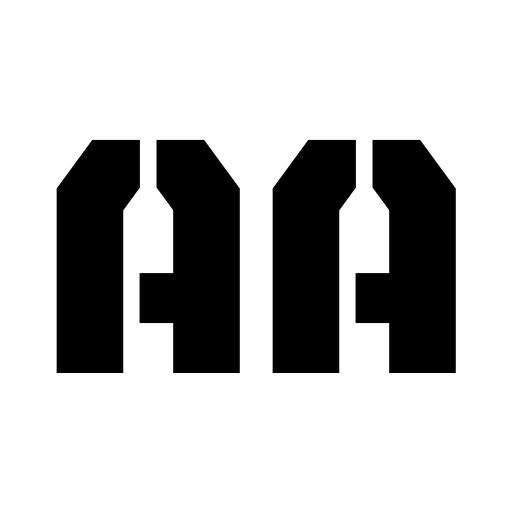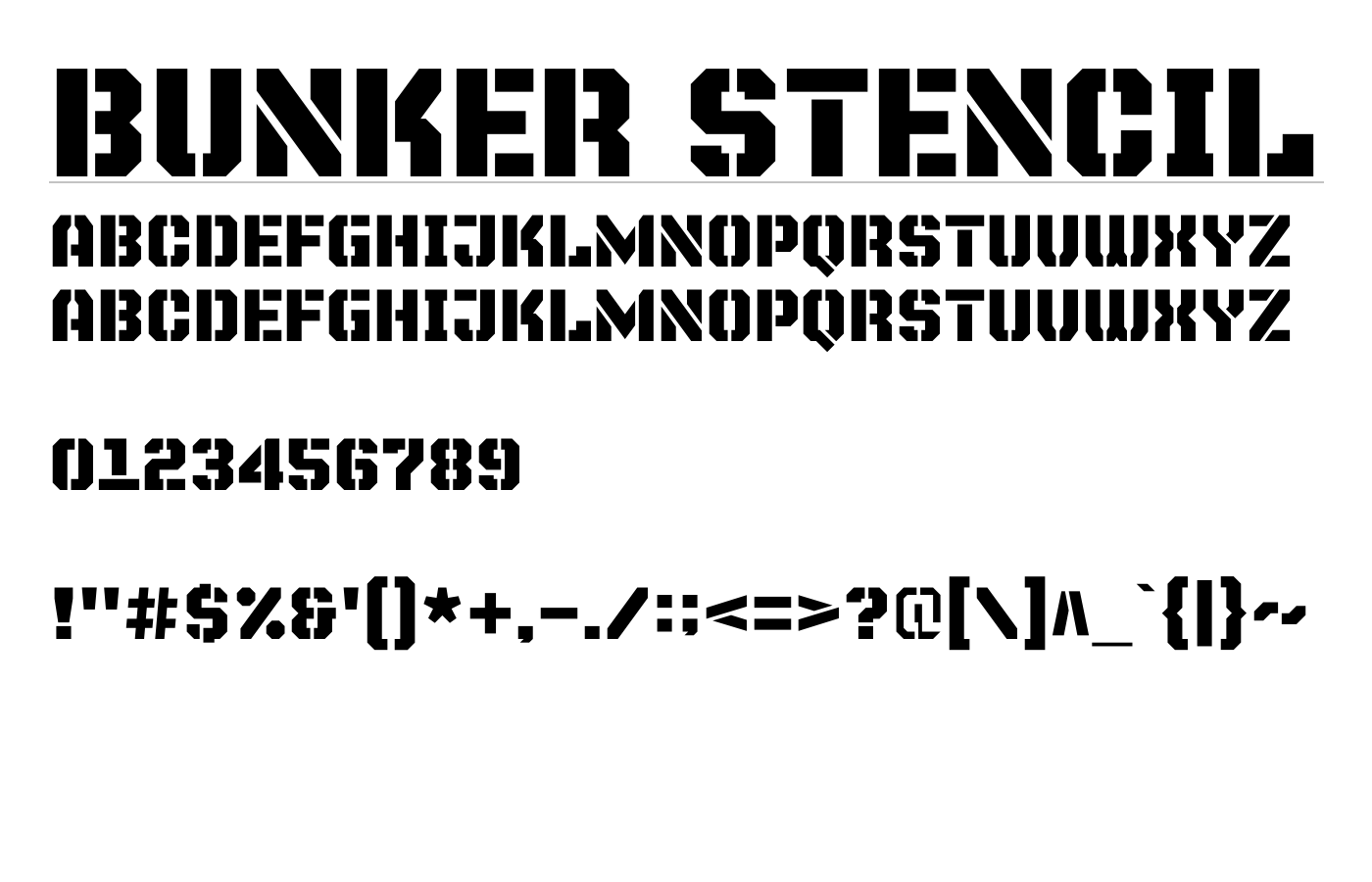
Bunker Stencil is a bold, geometric sans serif font that features a strong, industrial stencil style with thick, blocky letterforms and sharp edges. Its heavy weight and distinct cut-out sections give it a rugged, utilitarian feel, making it ideal for military, urban, or industrial-themed designs. This font works best for attention-grabbing headlines, posters, and branding where a tough, no-nonsense aesthetic is desired.
Bunker Stencil Font
About Bunker Stencil Font